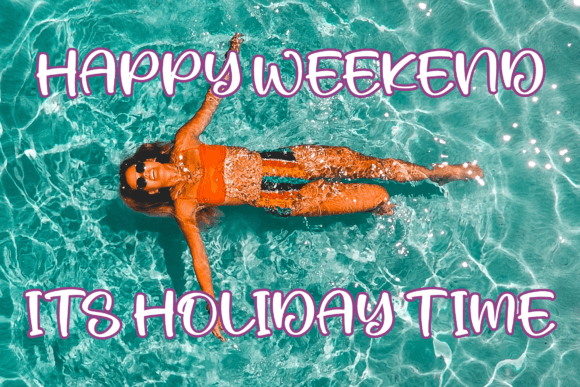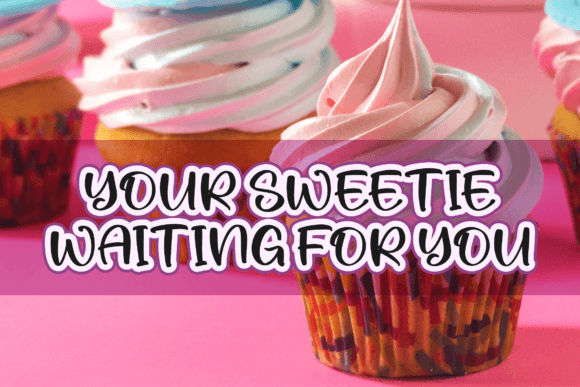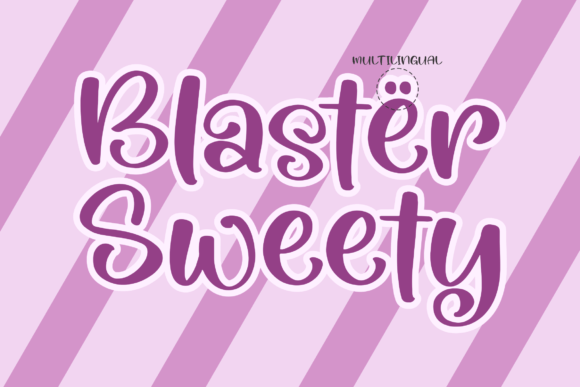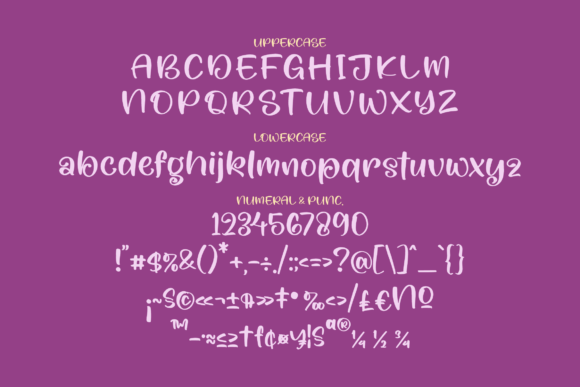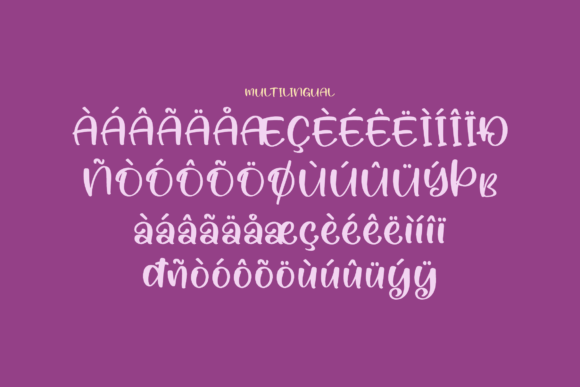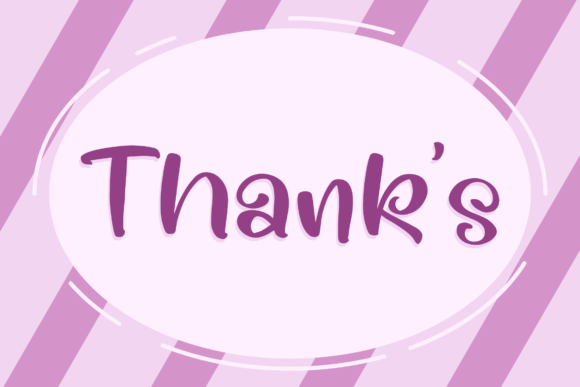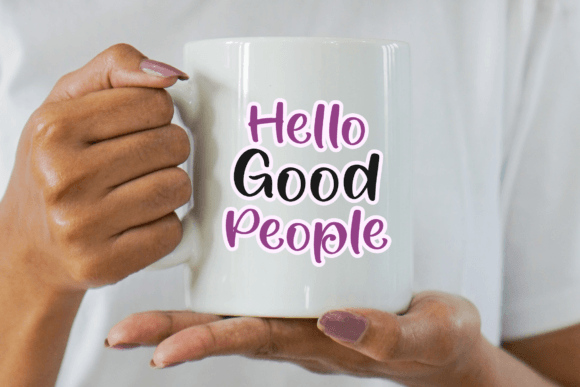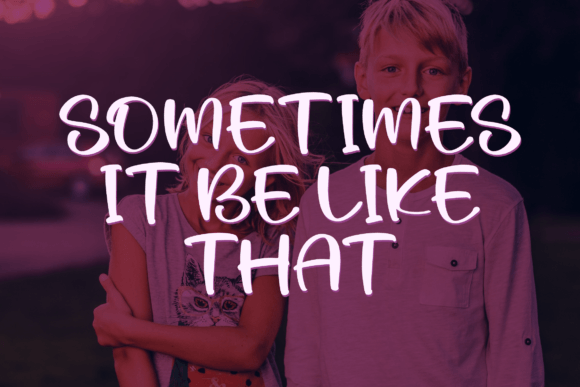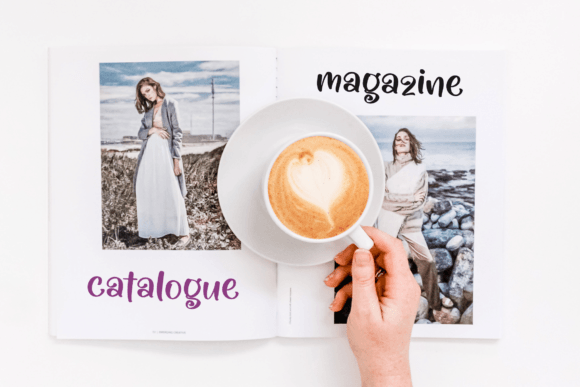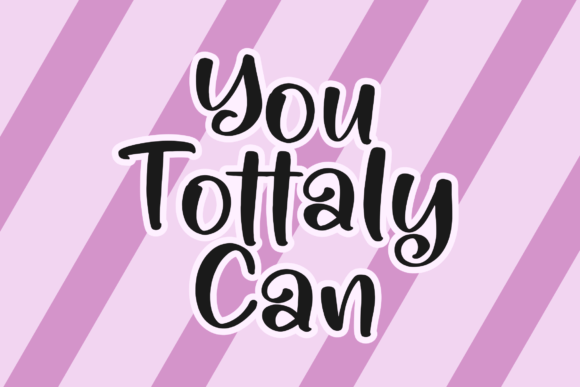
Blaster Font
About Blaster Font
Introducing Blaster, a happy handwritten font designed to infuse your design with a joyful and fun mood. This font is crafted to bring a sense of happiness to your projects, making it perfect for branding, packaging, logotypes, headlines, wedding invitations, and more.
The charm of Blaster lies in its handwritten style, which adds a personal and playful touch to your text. The font is designed to evoke a happy and fun mood, making it suitable for a variety of creative applications.
In branding and packaging, Blaster becomes a delightful choice. Its happy handwritten script brings a sense of warmth and friendliness, making your products or brand identity more approachable and engaging.
For logotypes and headlines, Blaster adds a joyful and fun vibe. The font’s playful nature enhances the visual appeal, making your text stand out with a lively and energetic character.
In wedding invitations and other celebratory designs, Blaster contributes to a cheerful and festive atmosphere. The handwritten style adds a personal touch to the occasion, creating designs that are both joyful and memorable.
Blaster is versatile and adaptable to different design contexts. Whether you’re working on digital designs or print materials, this font is crafted to bring a happy and fun mood to your creative projects.
In conclusion, Blaster is a happy handwritten font that injects a joyful and fun mood into your designs. Choose Blaster to add a playful and lively character to your branding, packaging, logotypes, headlines, wedding invitations, and more, creating visually stunning and emotionally resonant outcomes.